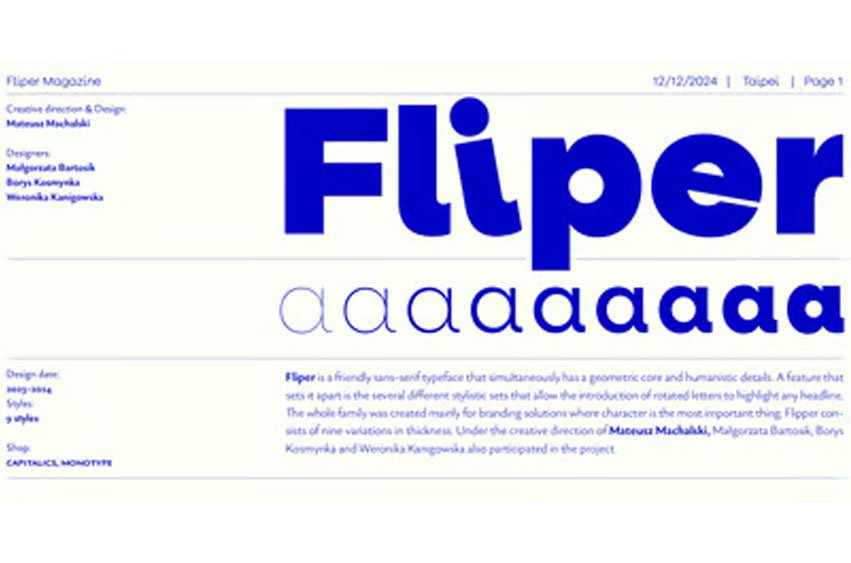
Fliper Font is a friendly sans-serif typeface that simultaneously has a geometric core and humanistic details. A feature that sets it apart is the several different stylistic sets that allow the introduction of rotated letters to highlight any headline.
The whole family was created mainly for branding solutions where character is the most important thing. Flipper consists of nine variations in thickness. Under the creative direction of Mateusz Machalski, Małgorzata Bartosik, Borys Kosmynka and Weronika Kanigowska also participated in the project.